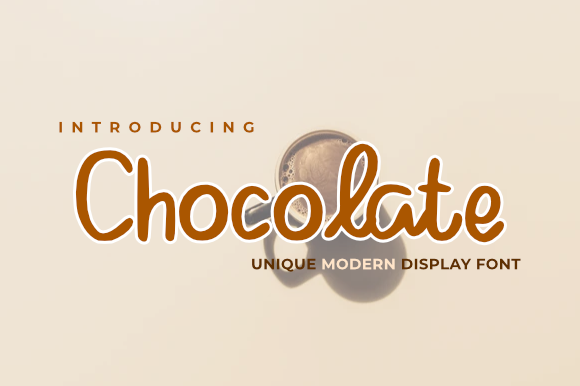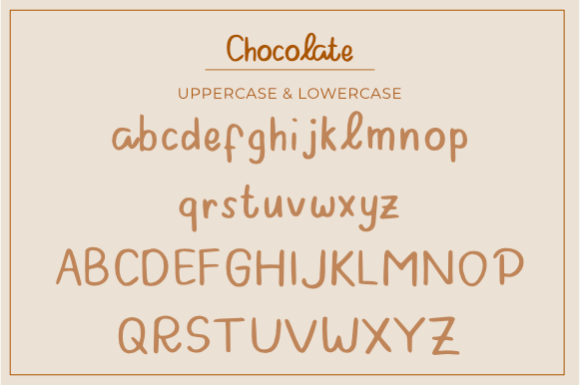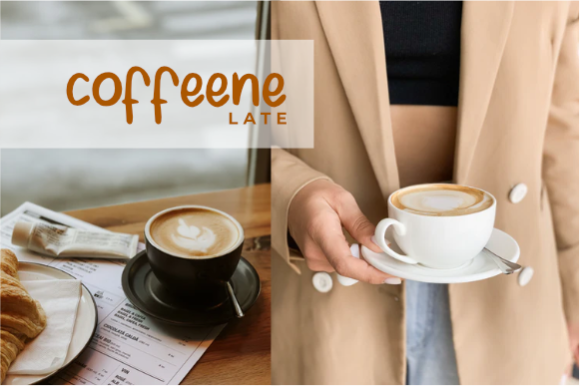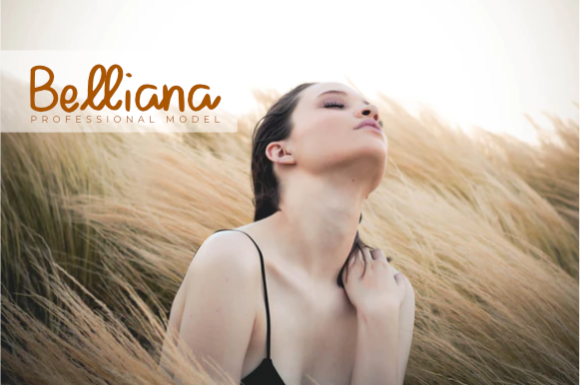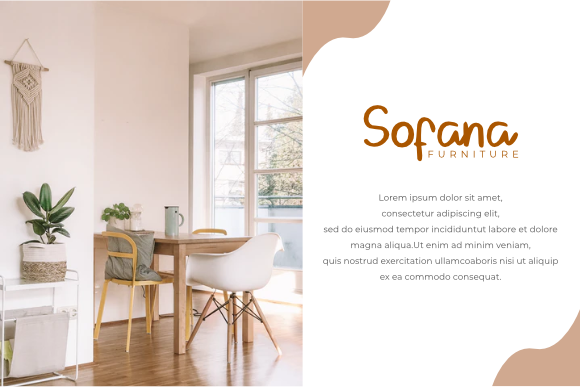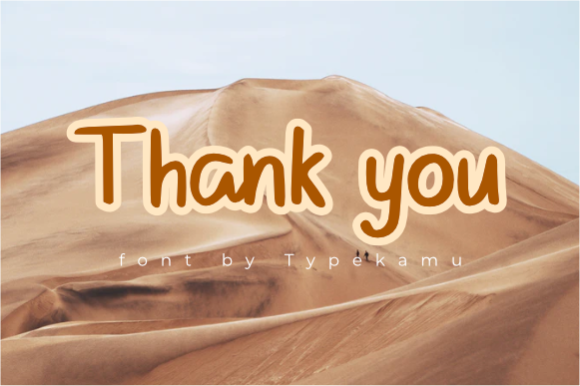
About Chocolate Font
Chocolate is a delightful and charming handwritten font that brings a touch of joy to any design. With its clean and smooth vibe, this font exudes a sense of simplicity and playfulness that is sure to catch the eye.
The thin strokes and smooth curves of Chocolate give it a light and airy appearance. Each letter has been carefully crafted to maintain clarity and legibility, making it easy to read even at smaller sizes. Whether you’re designing a logo, creating a greeting card, or crafting a social media post, Chocolate will add a touch of whimsy and charm to your project.
The simplicity of Chocolate is one of its strengths. Its clean lines and uncluttered aesthetic make it versatile and suitable for a wide range of design applications. From branding and packaging to invitations and typography-based artwork, this font can adapt to various styles and themes.
The joyful and friendly nature of Chocolate makes it perfect for projects that aim to evoke positive emotions. Its playful and approachable style can add a sense of warmth and friendliness to your designs. Whether you’re creating a birthday card, a children’s book cover, or a cheerful poster, Chocolate will bring a smile to your audience’s face.
So, whether you’re looking to add a touch of joy to your branding, create a playful invitation, or simply want to bring a cheerful vibe to your designs, Chocolate is the perfect choice. Let this simple and joyful handwritten font elevate your projects and spread happiness to your audience.